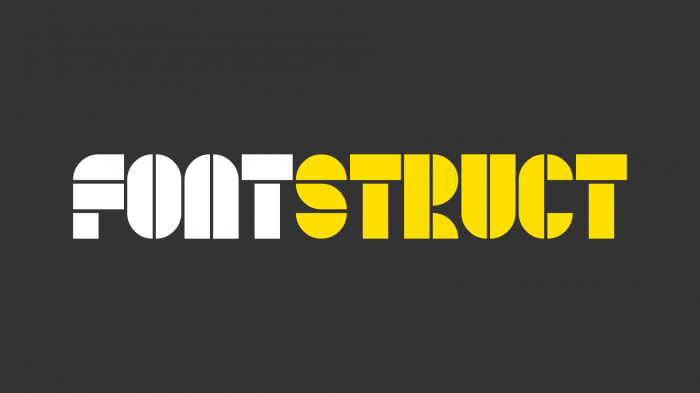
• If you put it this way, most fonts based off FontStruct only recreates the current logo, this here is my try on one of Rob Meek's logo designs.
I call this one Structster.
Structsterby SinMedia Studios